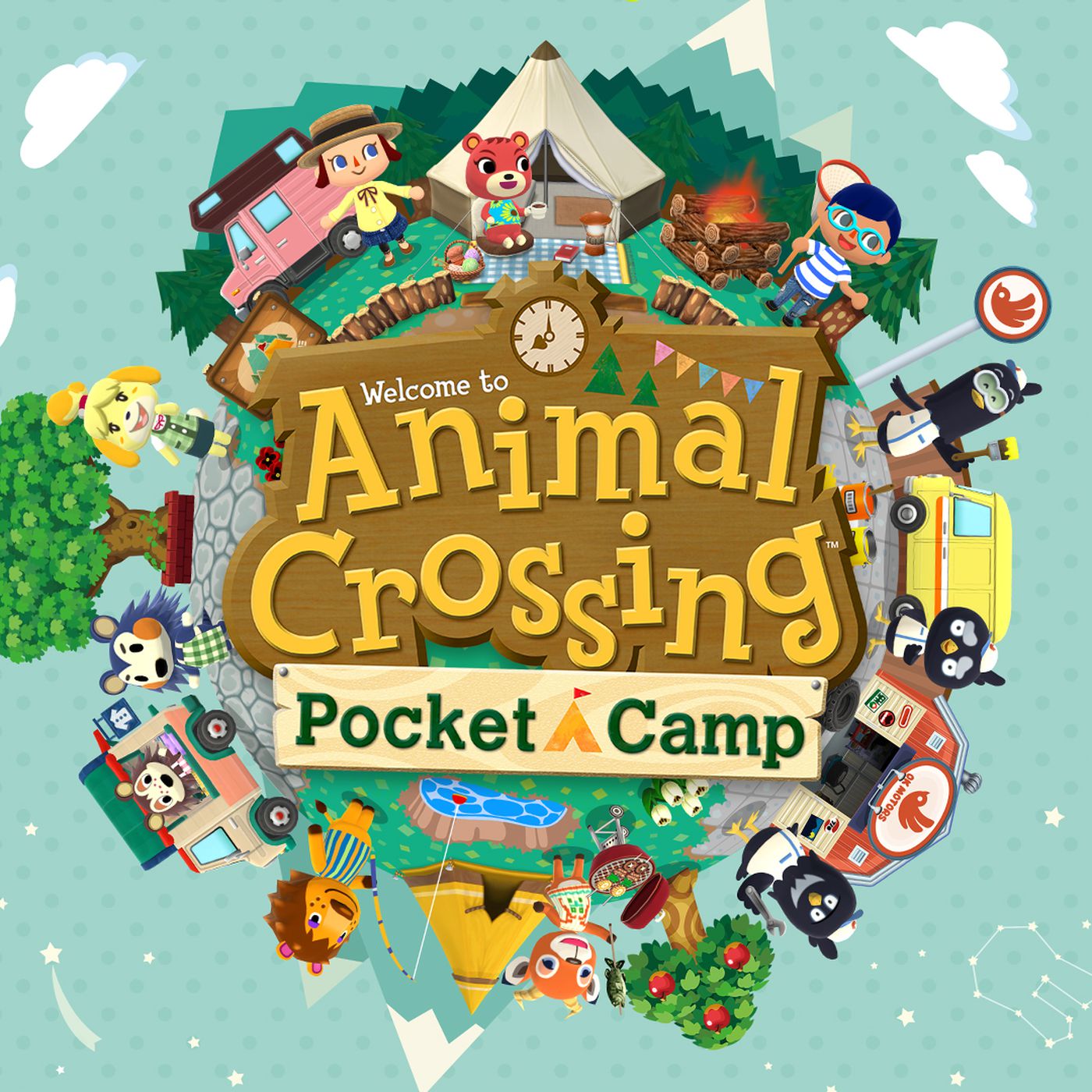
Pocket Camp Font
Fonts in UseAnimal Crossing: Pocket Camp is a mobile simulation game developed by Nintendo where players manage a campsite, customize their character and interact with animal friends. The game also features seasonal events and crafting activities.
Calvert Bold, a slab serif typeface created by British designer Margaret Calvert in 1980 for Monotype, is paired with House Industries' Rat Fink Heavy to create the game's title.